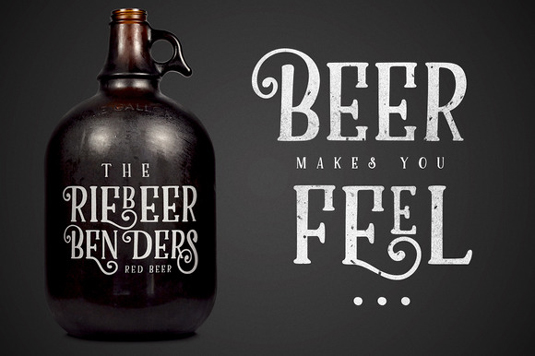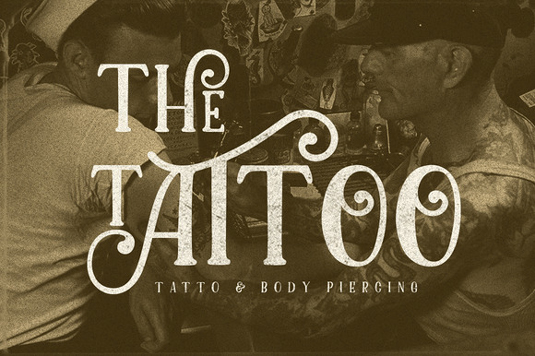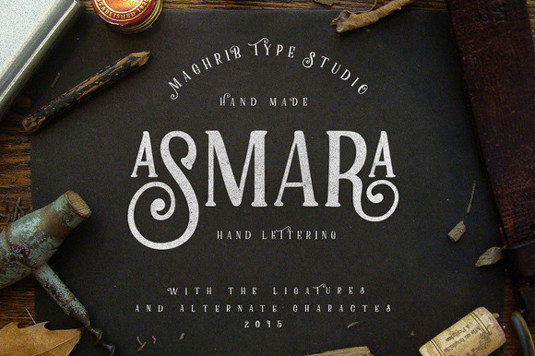
Font of the day: Asmara
Asmara from Maghrib Type Studio
If you're on the hunt for a decorative serif font, Asmara might just be the solution. Created by the team at Maghrib Type Studio and available from Creative Market, Asmara is described as a 'font embodying vintage and elegant curves with functional structure'.